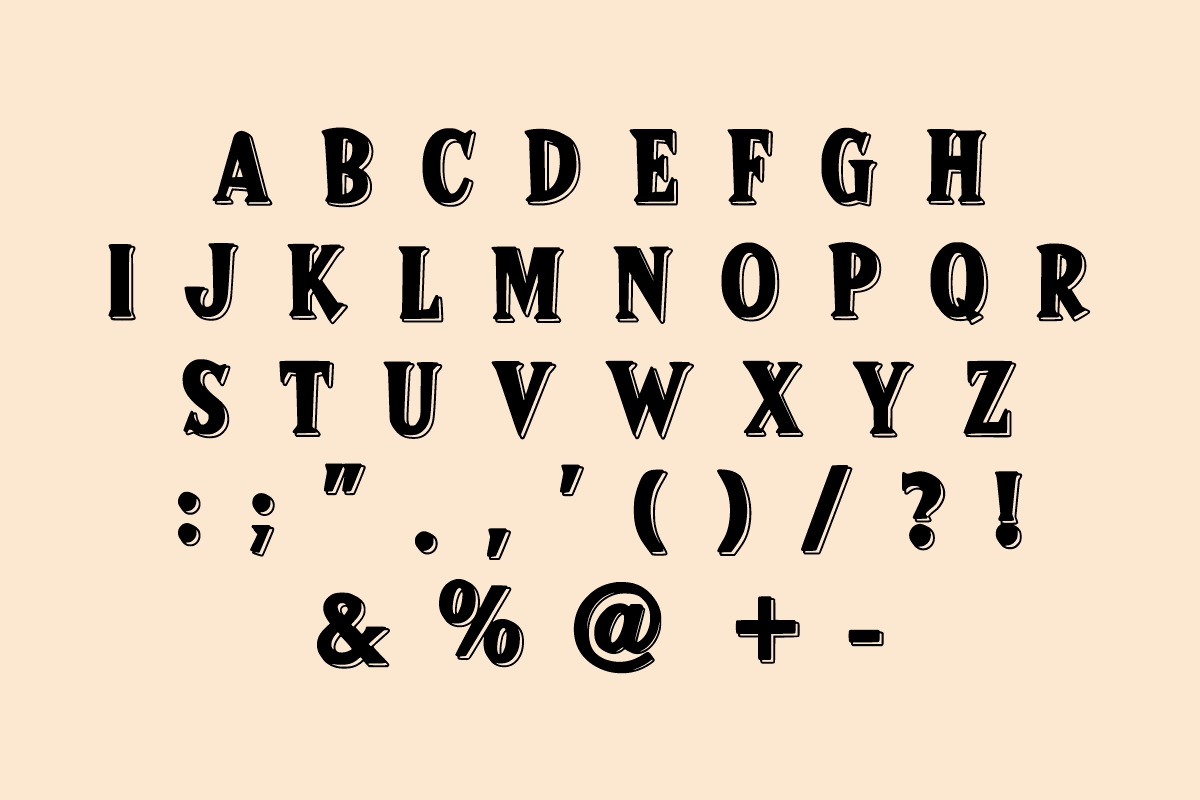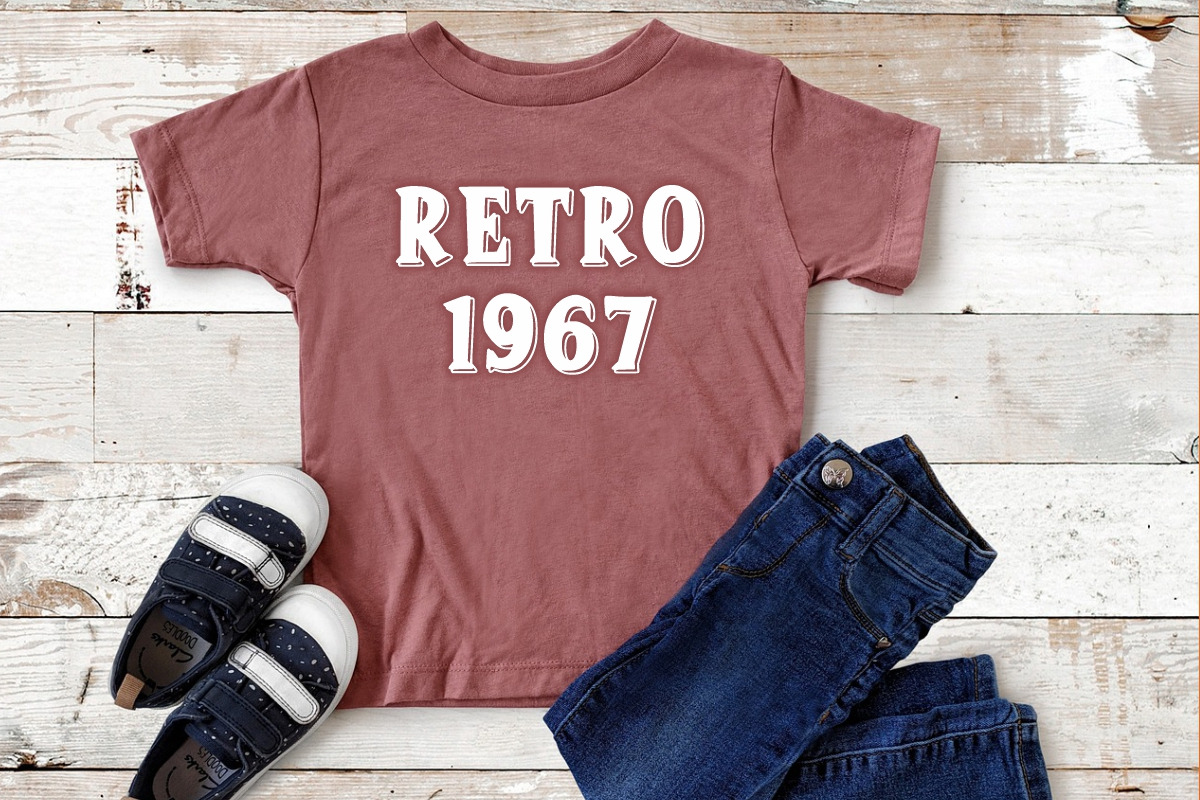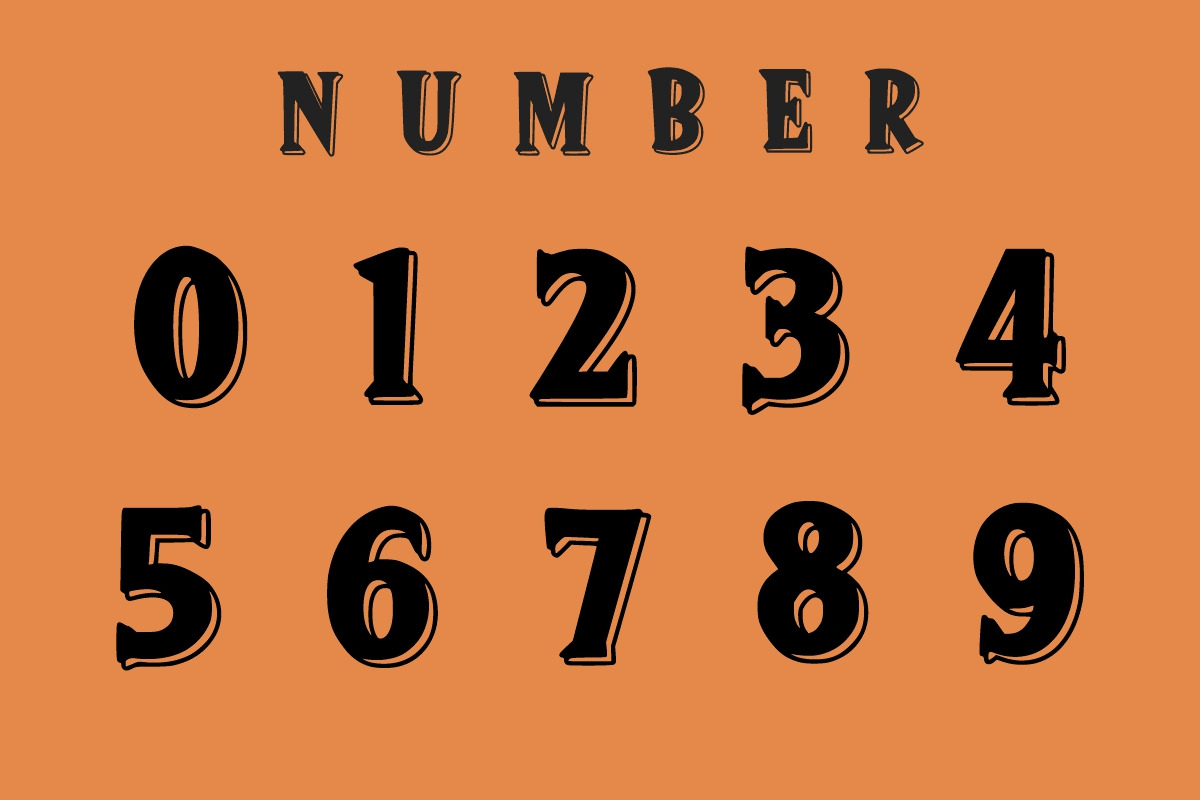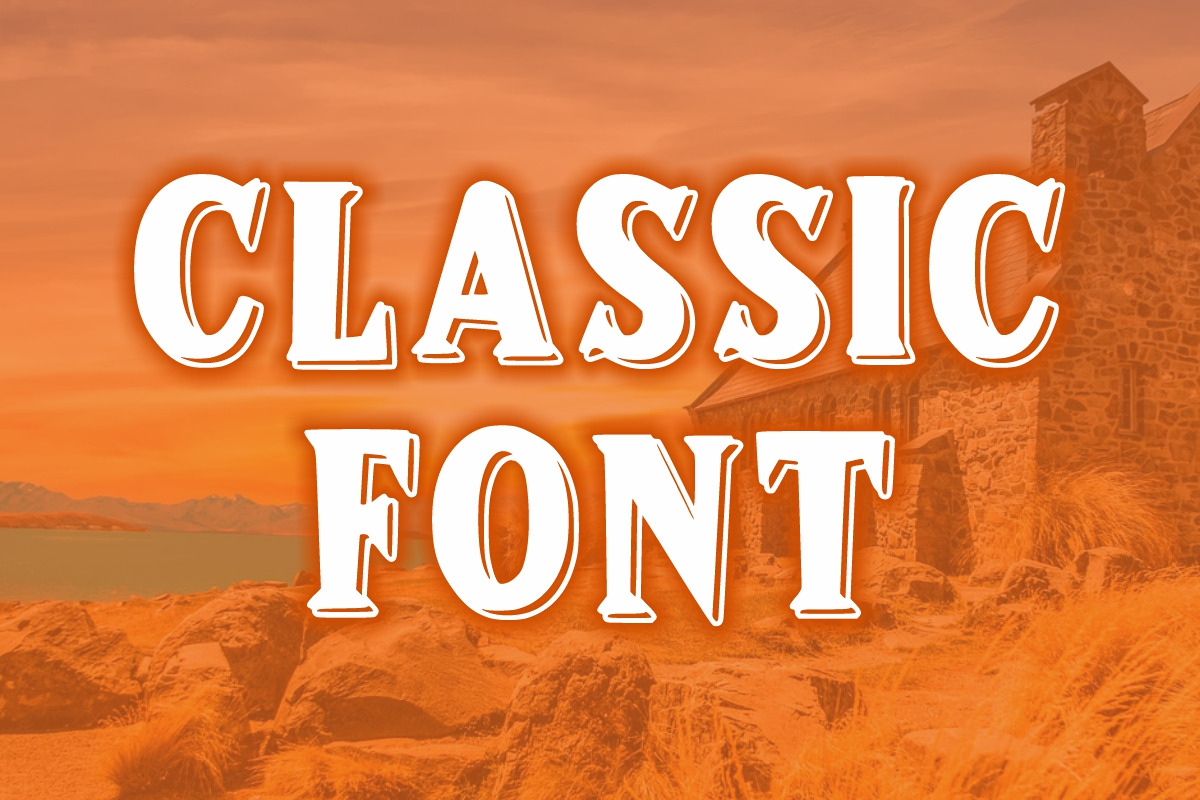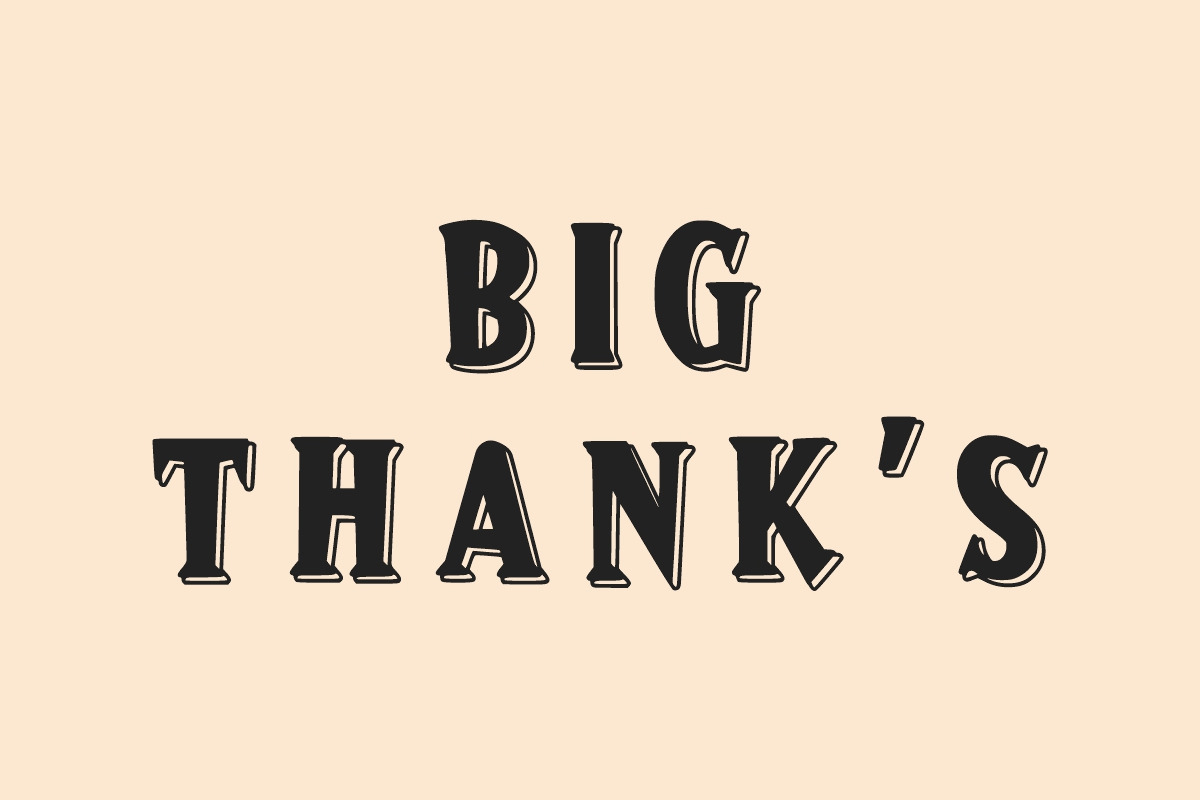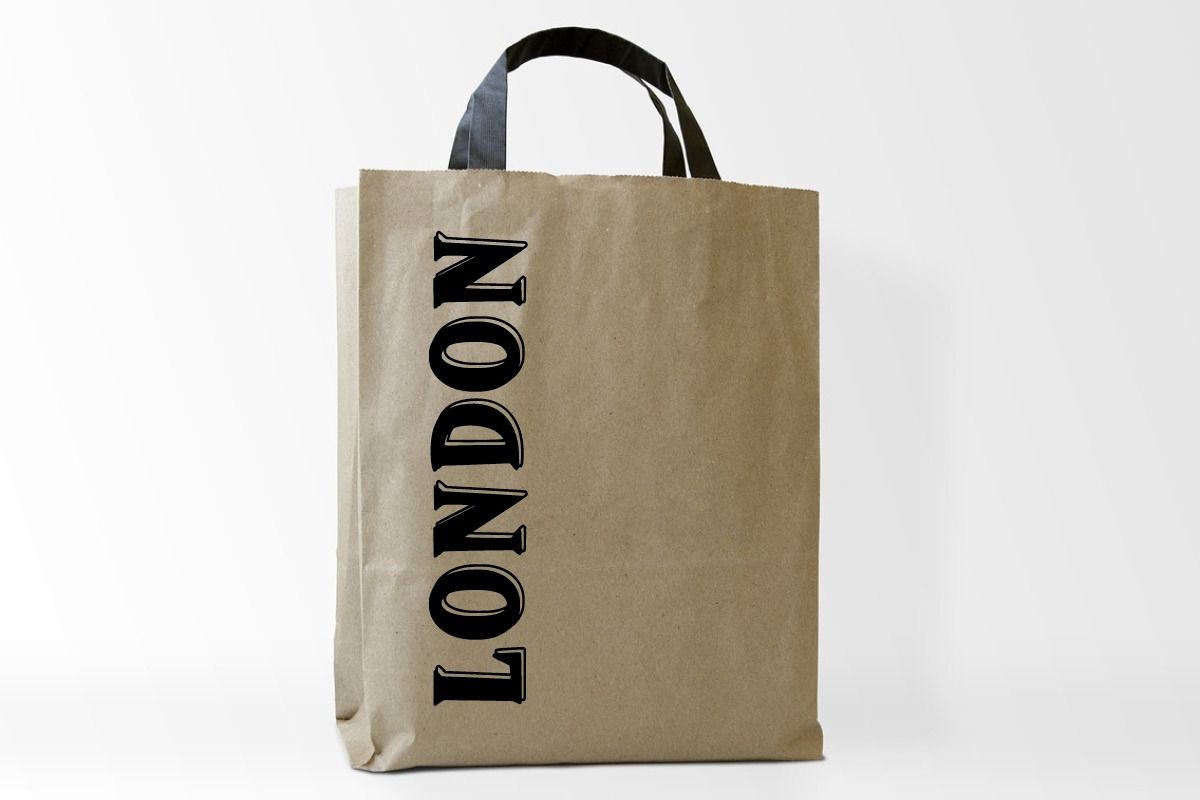
SUPER BLONDE
Super Blonde is a classic, bold, and thick-lettered display font. No matter the topic, this font will be an incredible asset to your fonts’ library, as it has the potential to elevate any creation.